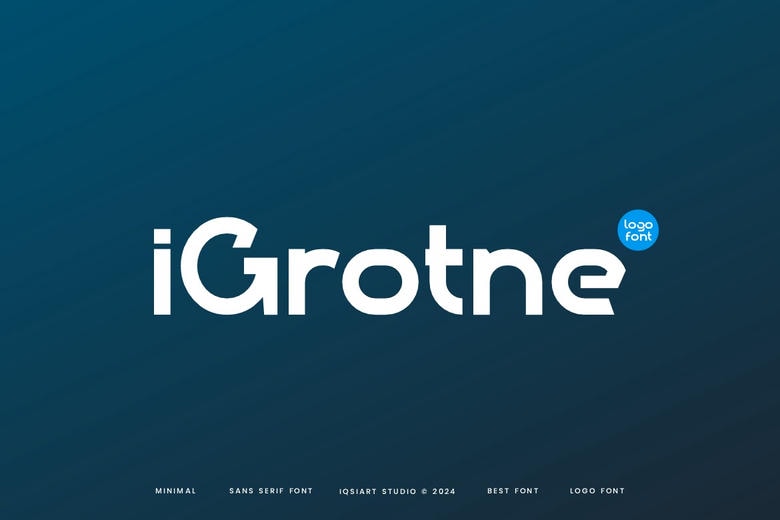
Igrotne Font
Igrotne is another fresh sans serif which can be used for both personal and business purposes because It is fully customizable with a minimalist design and It has no unnecessary details. It has clean fonts and a welcoming appearance which is great for content of any type of document. Seemlessly replace any standard font and is especially suitable for headlines and body copy; it gives a new touch to your designs.
Igrotne Sans Serif Font